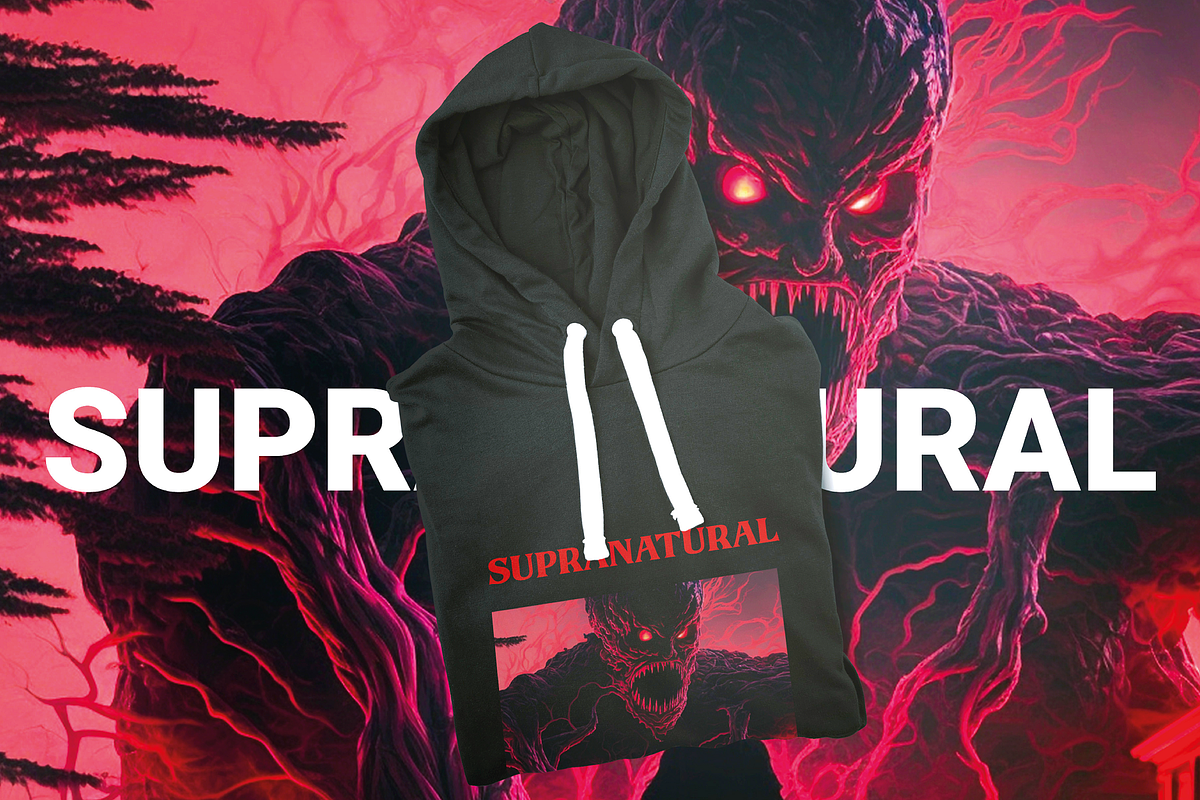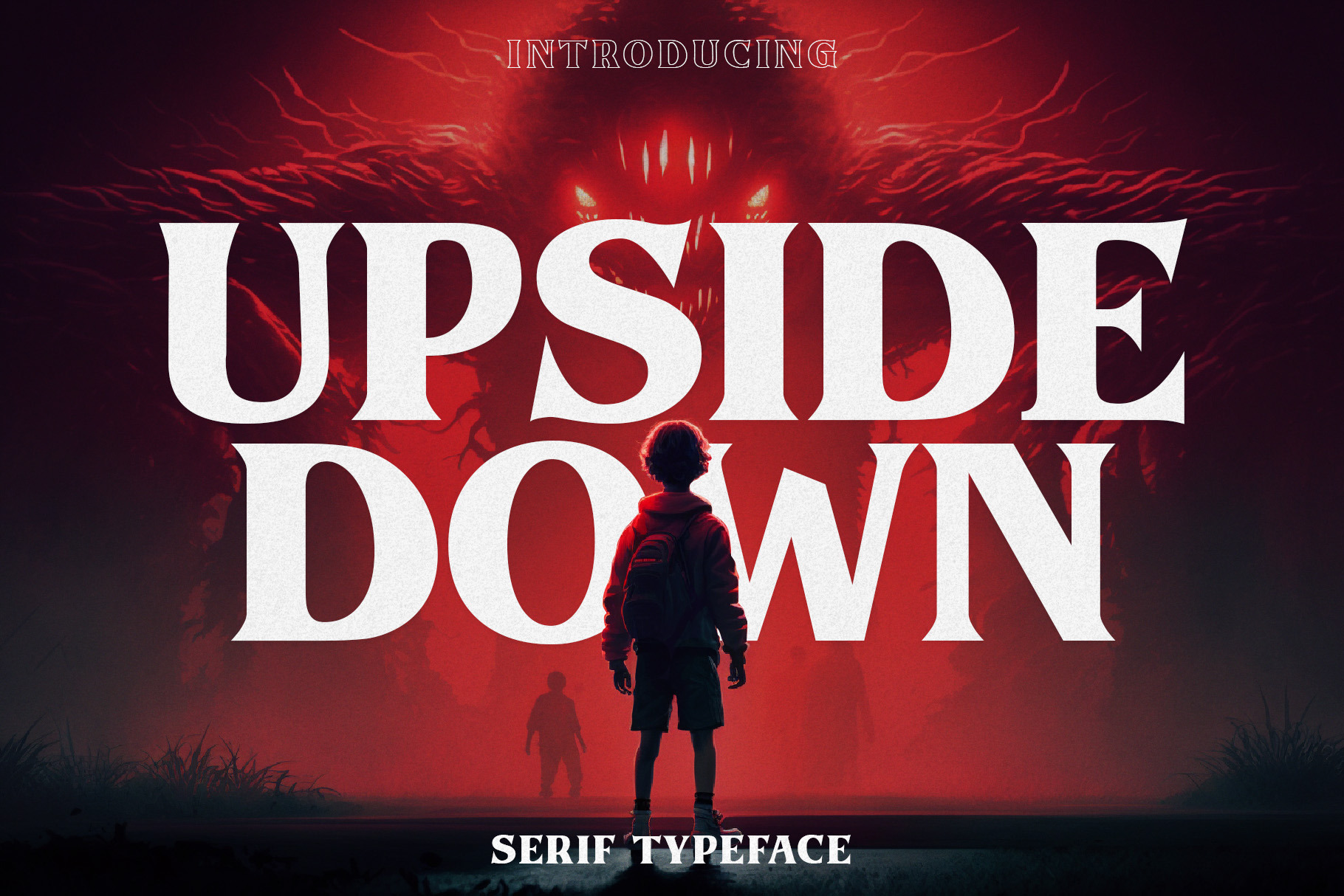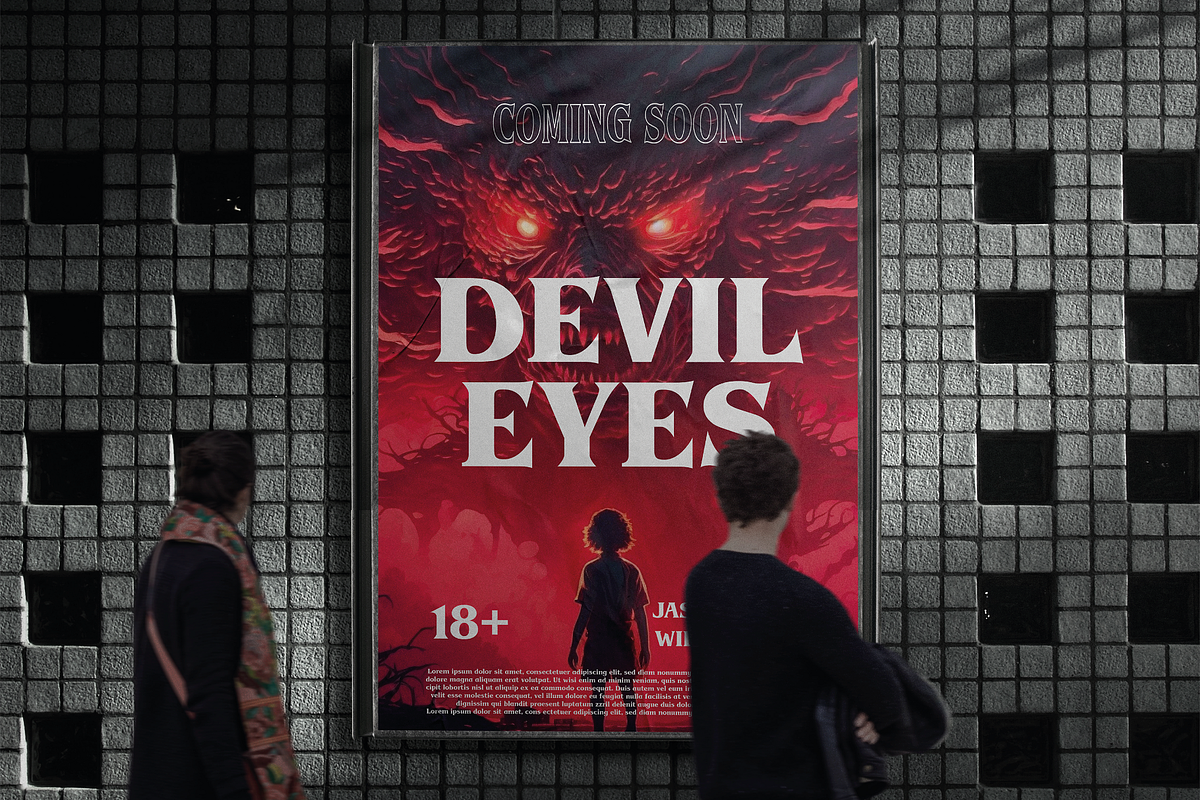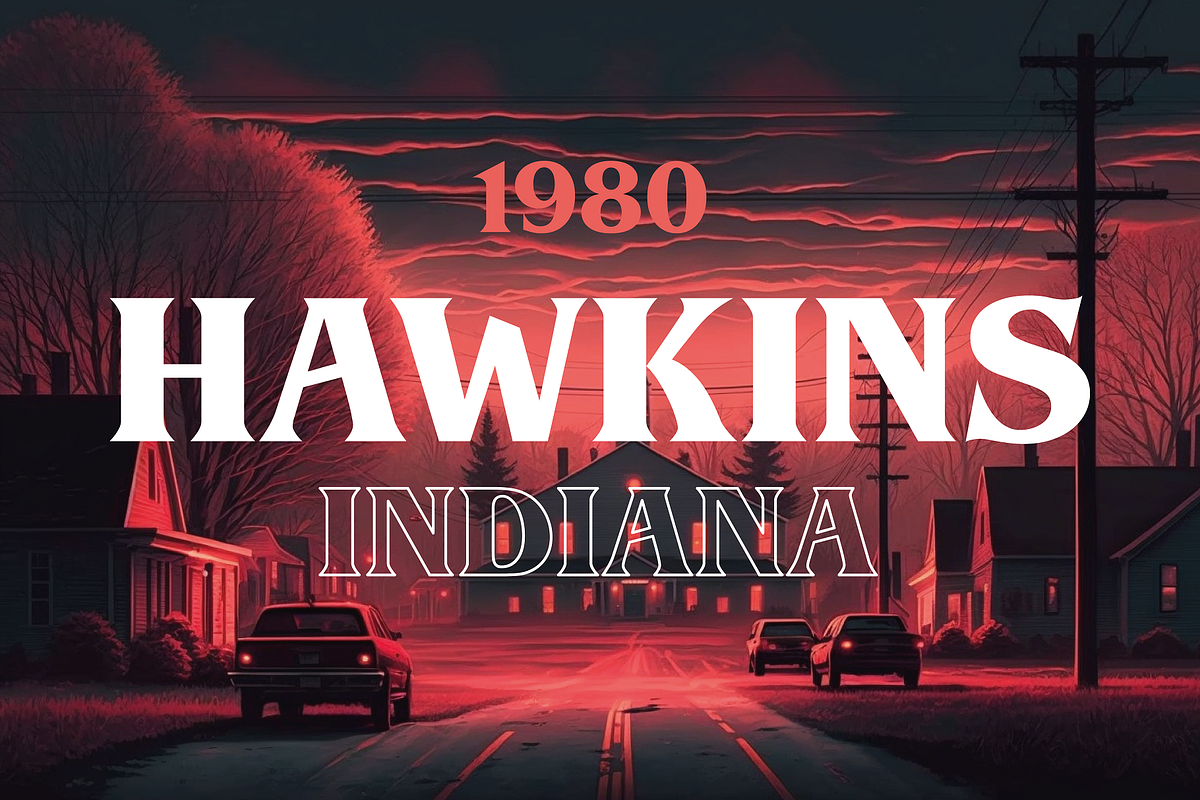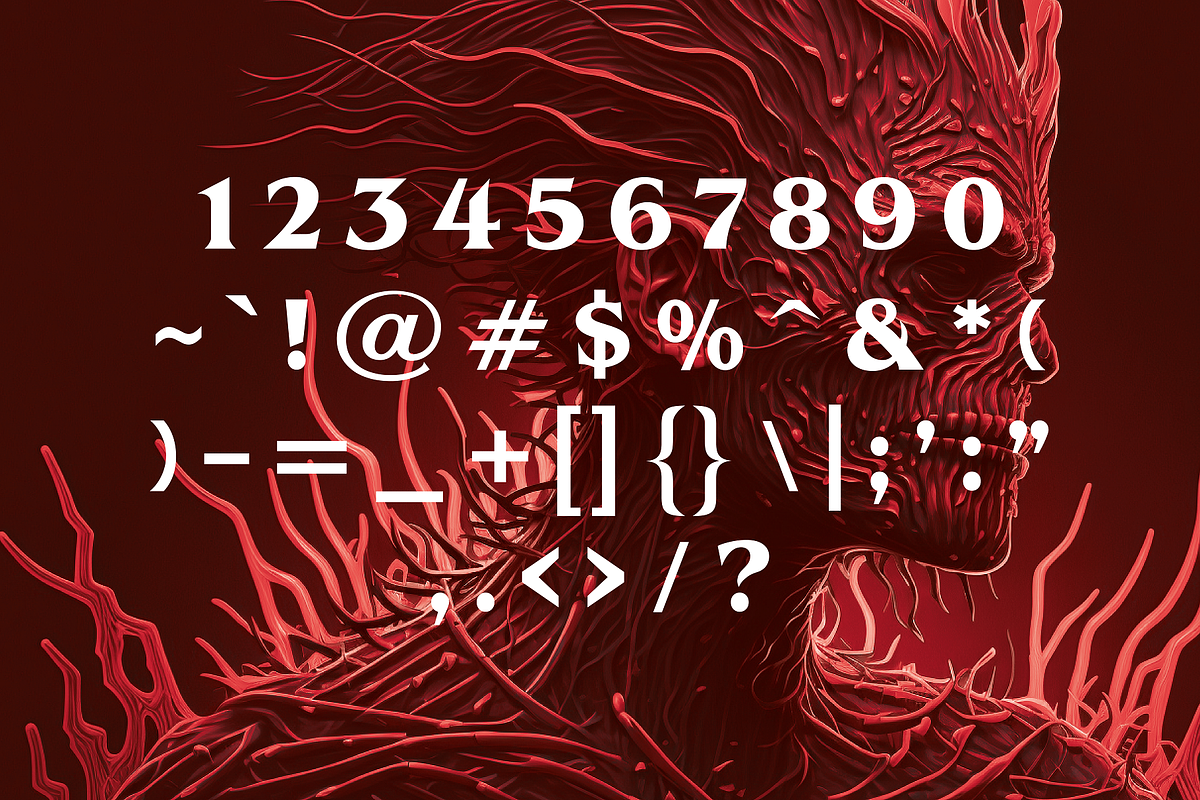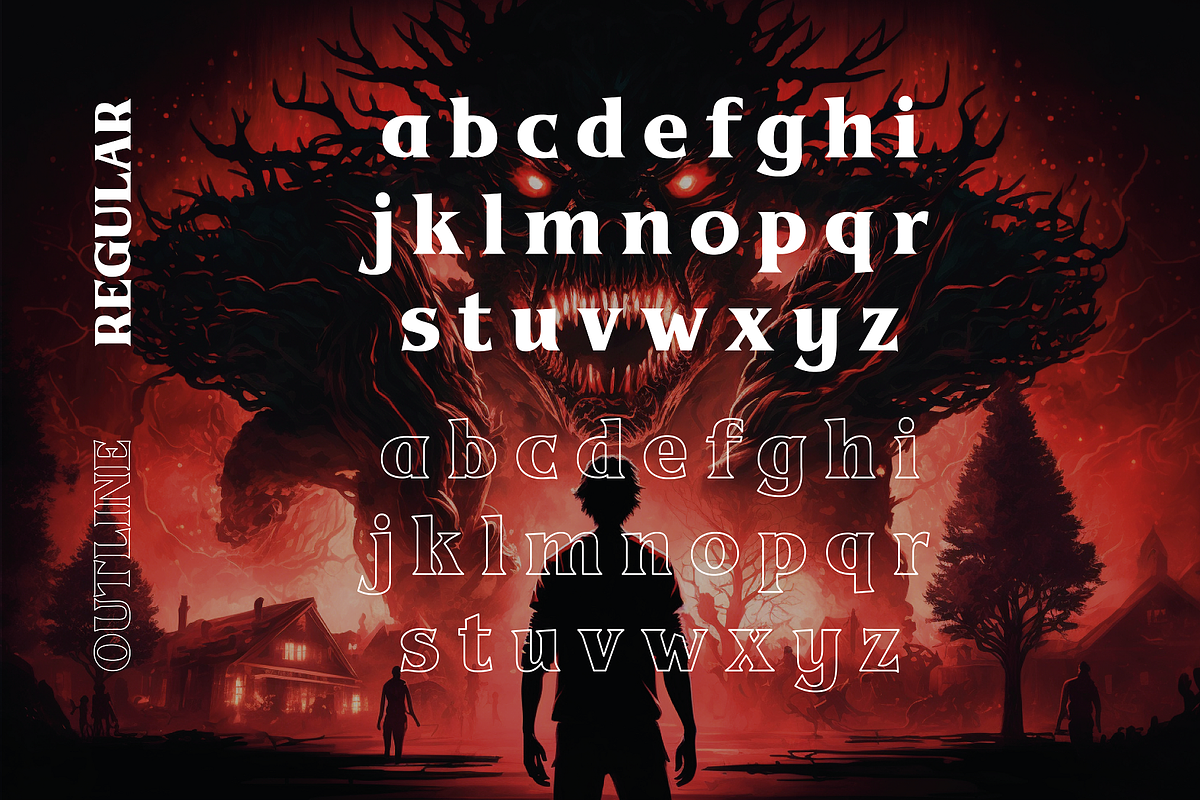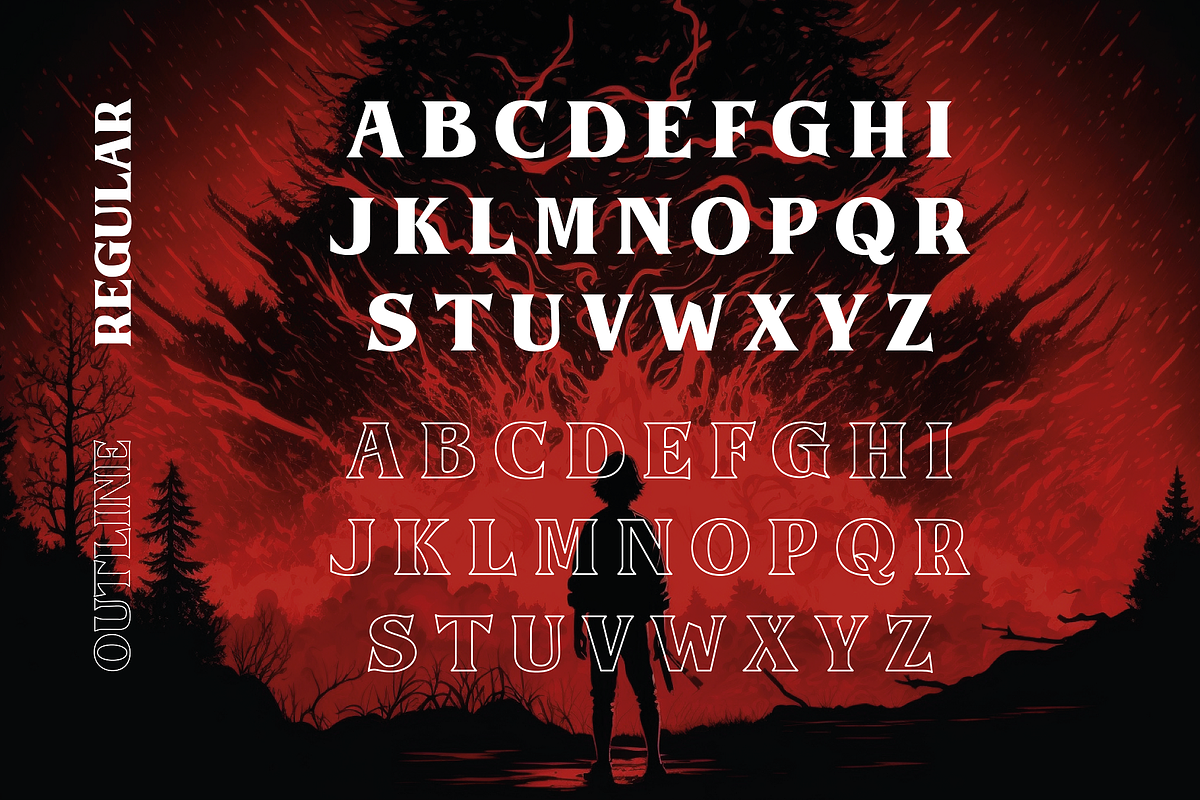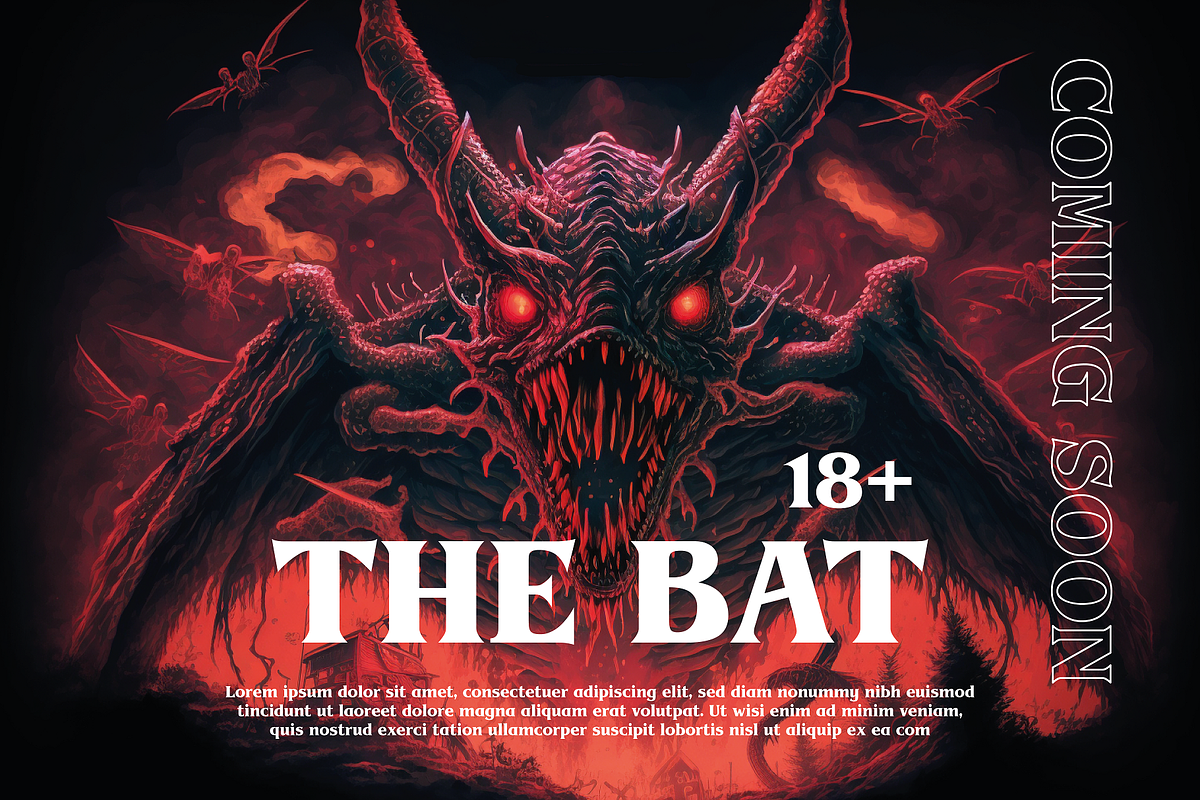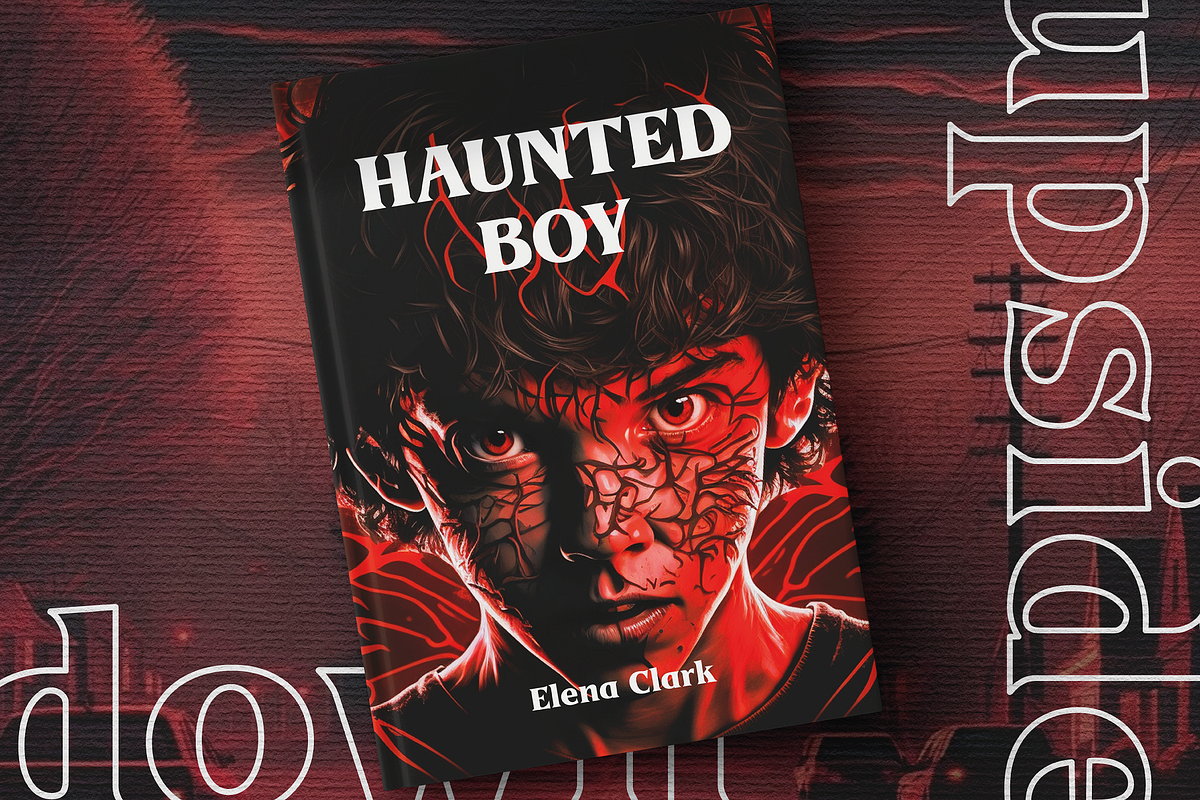
Upside Down - 1980s Retro Typeface
Introducing Upside Down, a bold and dramatic typeface that captures attention and sparks curiosity. With its sharp angles and curves, this versatile font will transport your designs to a world where anything is possible.
Take your posters, flyers, headlines, social media graphics, or logos to new heights with the daring and adventurous font. Upside Down comes in regular and outline, allowing you to mix them together to add a touch of mystery and excitement to your designs.